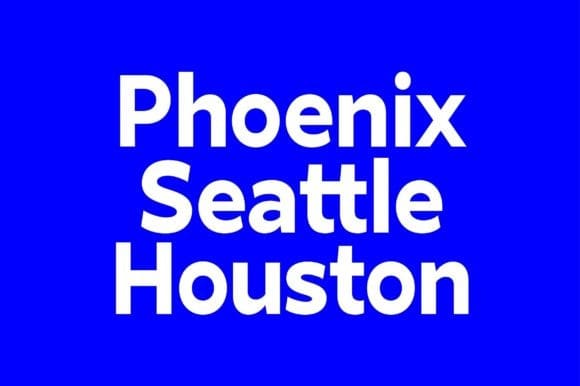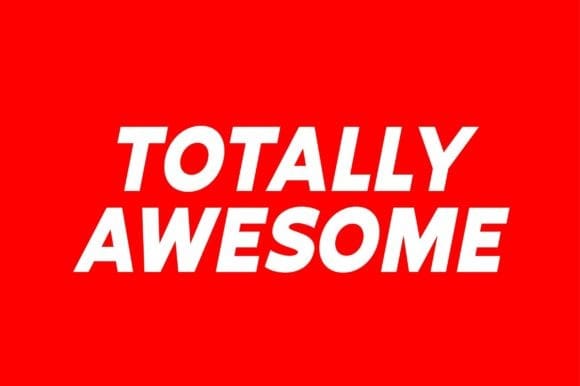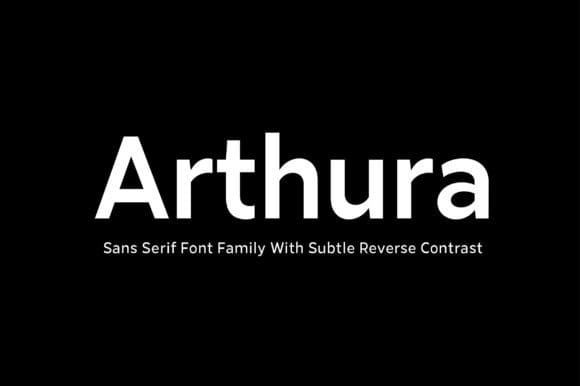
Arthura Font Family
Arthura Font Family, is a clean and neat sans serif font. Whatever the topic, this font will be a wonderful asset to your font library, as it has the potential to enhance any creation.